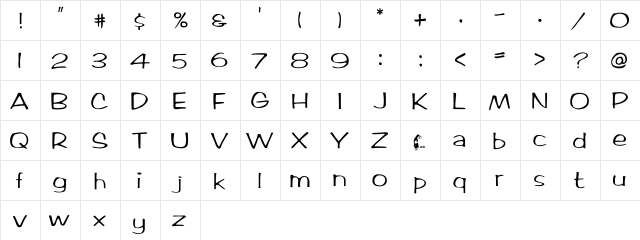
Firgid Regular Font Preview
Firgid Regular
Design Context for Firgid Typeface
Firgid is a composed and adaptable typeface that performs quietly and consistently across a wide range of design contexts.